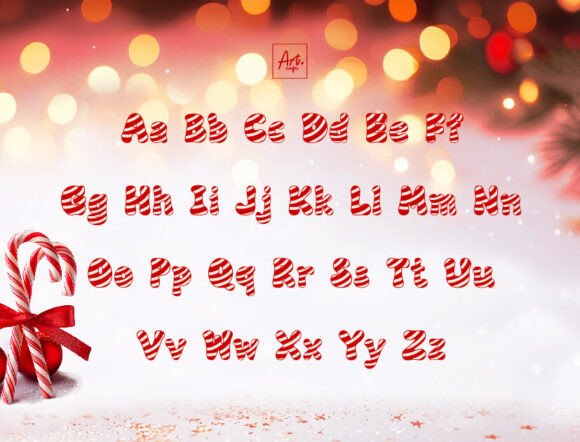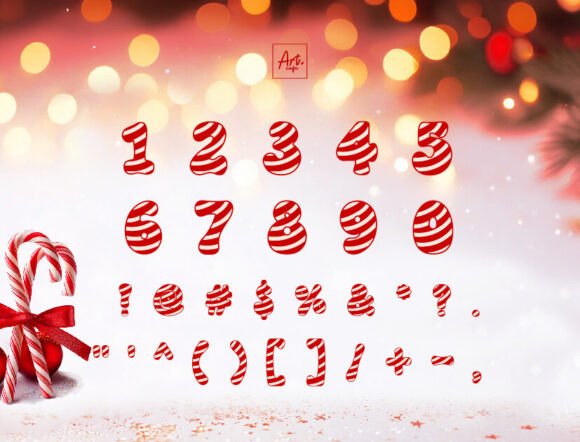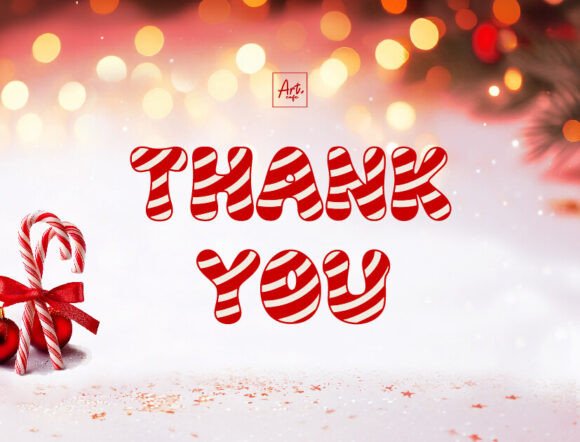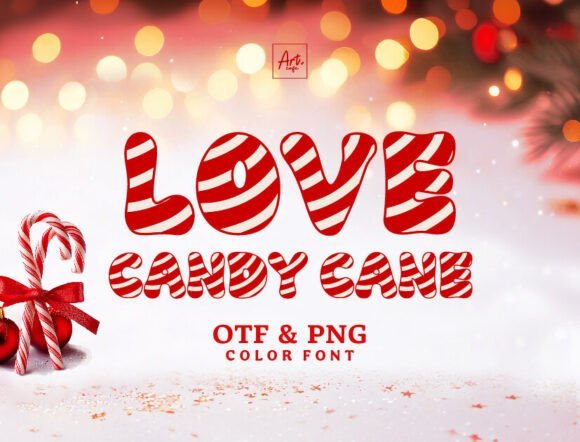
Introduction to Love Candy Cane Font
Introducing Love Candy Cane, a delightful font fusion of the timeless Red-White striped Candy Cane.
Drenched in the warm blush of yesteryears, this enchanting typeface serenades Christmas festivities, whispers Valentine’s Day emotions, and mesmerizes in whimsical child-focused creations Love Candy Cane brings an extra touch of magic, offering accompanying PNG files tucked away in the β€˜Download Bonus Files.